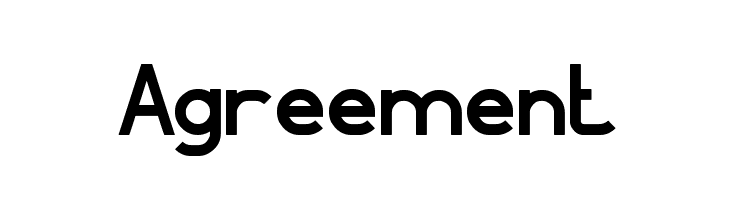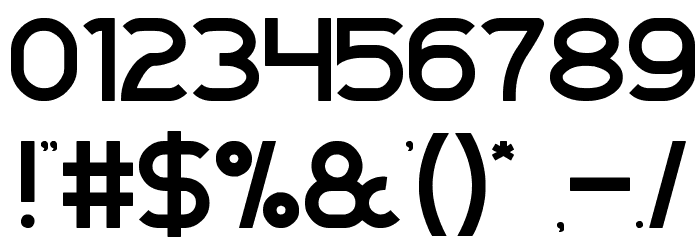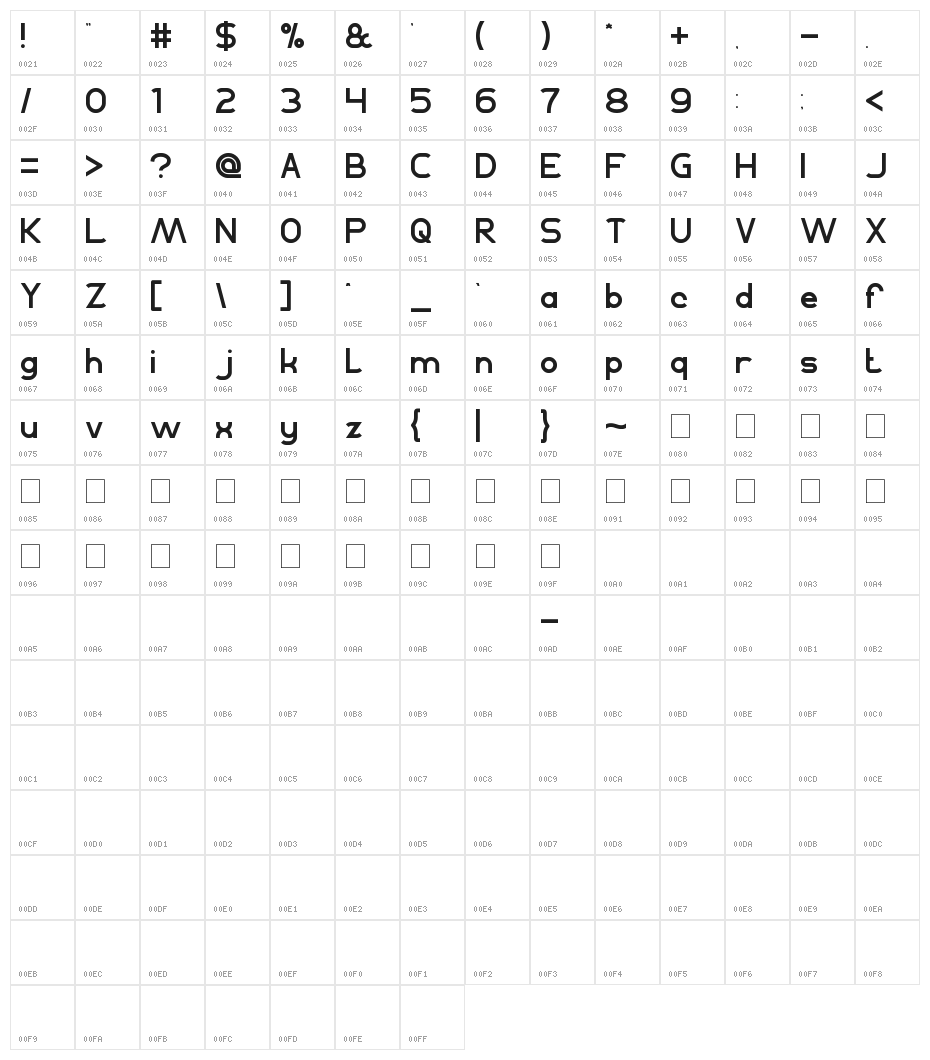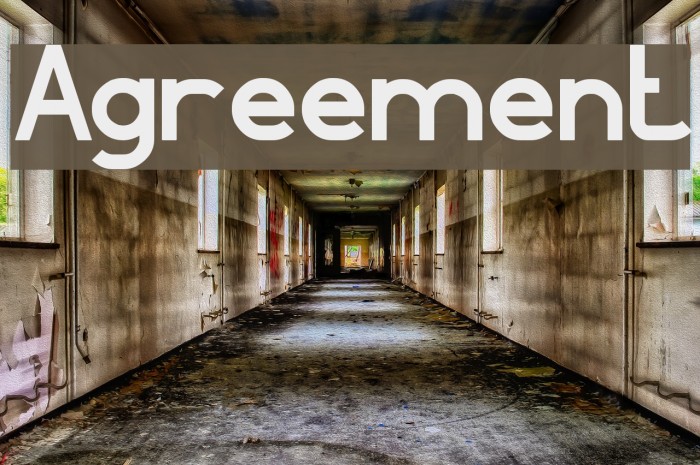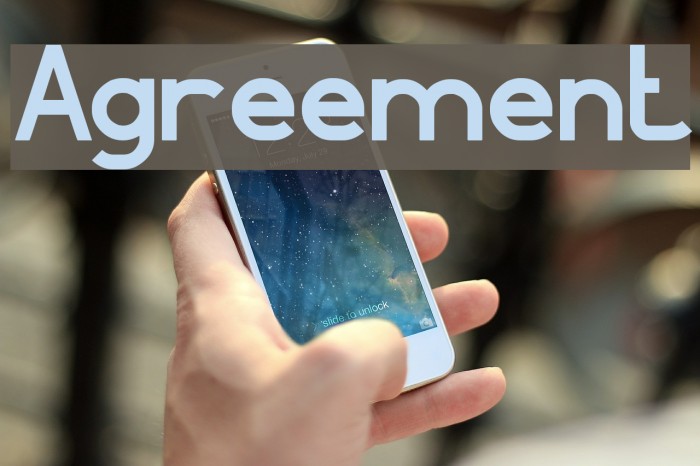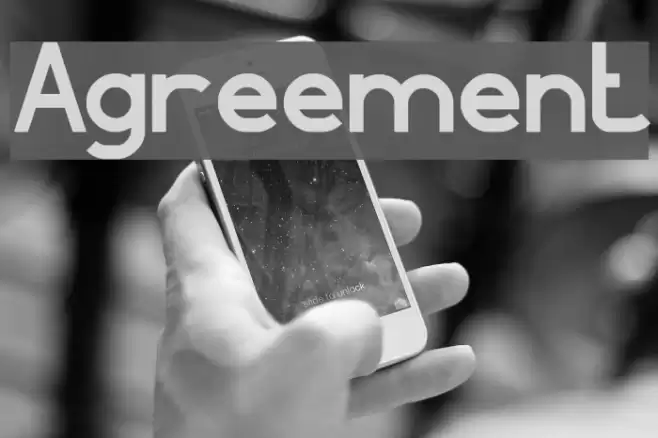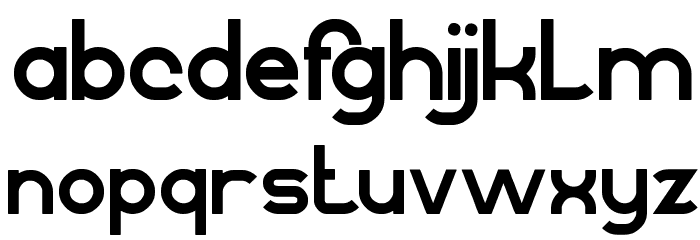
Agreement Font
Agreement Description
This font features a modern and geometric design, characterized by clean lines and a uniform stroke width. The uppercase letters are bold and assertive, with a slight curvature that adds a touch of softness to the otherwise structured appearance. The lowercase letters maintain a consistent style, with rounded edges that enhance readability. The numerals are clear and straightforward, matching the overall aesthetic of the font. Special characters are well-integrated, providing a cohesive look across all glyphs. This font is versatile, suitable for both digital and print media, and can be used effectively in various design contexts.
| Use Case | Headlines, Logos, Branding |
| Proposed Projects | Ideal for branding, advertising, web design, and editorial projects. |